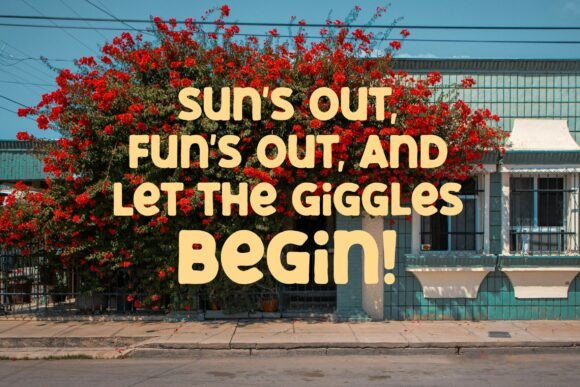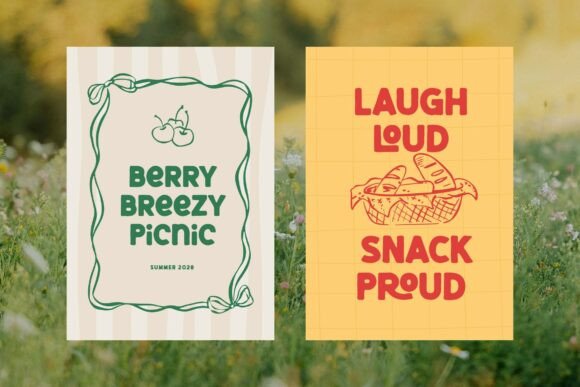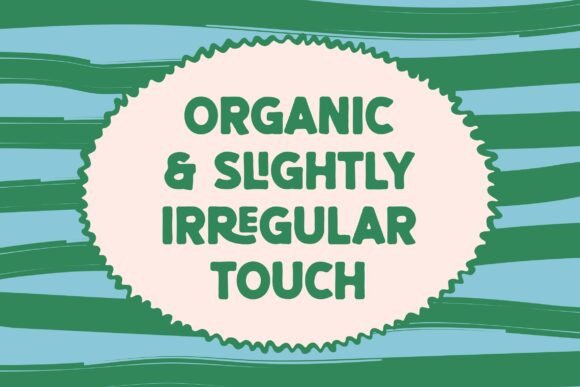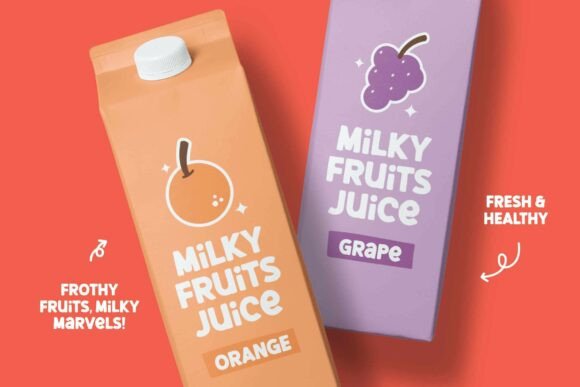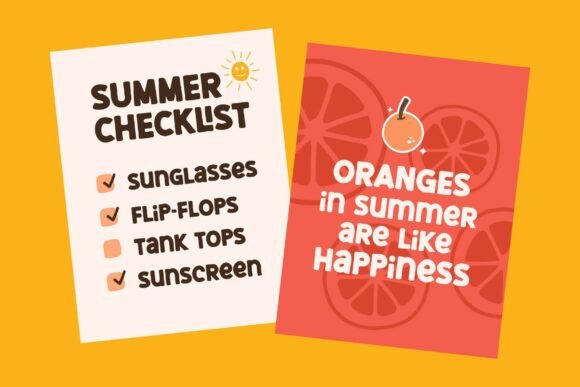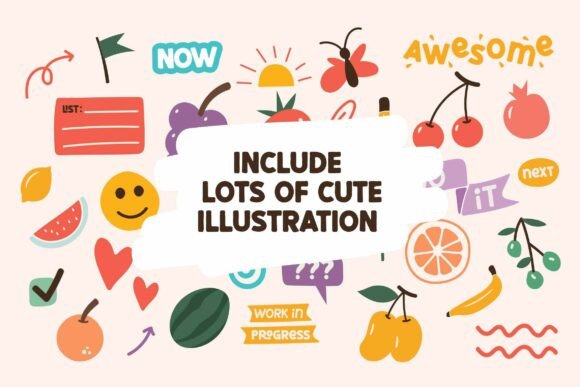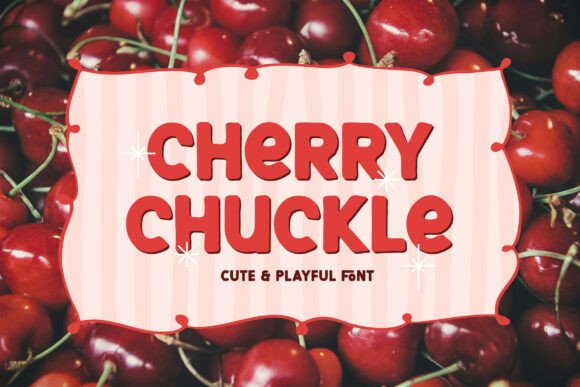
The Joy of Cherry Chuckle Font: A Designer’s New Best Friend
I’ll never forget the time I was working on a children’s book cover design, and I just couldn’t find the right font to capture the playful, whimsical vibe I was going for. The client wanted something that would appeal to kids and parents alike, but everything I tried seemed either too boring or too over-the-top. That’s when I stumbled upon Cherry Chuckle Font, and let me tell you, it was love at first sight! 💕
With its chunky, hand-drawn letterforms and delightfully irregular shapes, Cherry Chuckle radiates warmth, joy, and pure playfulness. It’s like each character was carefully sketched with a cheerful wink, making it perfect for designs that need a friendly, approachable feel.
An Honest Review of Cherry Chuckle Font
- ✅ The soft, rounded letterforms are perfect for creating a warm and inviting design
- ✅ The font’s playful irregularities add a delightful touch of whimsy to any design
- ✅ It’s incredibly versatile and can be used for a wide range of projects, from children’s book covers to social media quotes
- ✅ The font is highly legible, even at smaller sizes
- ⚠️ Some characters may not work well at very small sizes, so it’s best to use it at larger sizes (24px and above)
- ⚠️ The font’s irregularities can make it tricky to use for body text, so it’s best suited for headlines and titles
The Backstory of Cherry Chuckle Font
Cherry Chuckle Font was designed with one goal in mind: to create a font that would bring joy and playfulness to any design. The designer, inspired by the whimsical world of children’s books and illustrations, set out to create a font that would capture the essence of childhood wonder. With its chunky, hand-drawn letterforms and delightfully irregular shapes, Cherry Chuckle Font is the perfect result of that vision.
Q: What is Cherry Chuckle Font best used for?
A: Cherry Chuckle Font is perfect for designs that need a friendly, approachable feel, such as children’s book covers, snack packaging, greeting cards, picnic posters, and social media quotes.
Q: Is Cherry Chuckle Font easy to read?
A: Yes, Cherry Chuckle Font is highly legible, even at smaller sizes, making it perfect for headlines and titles.